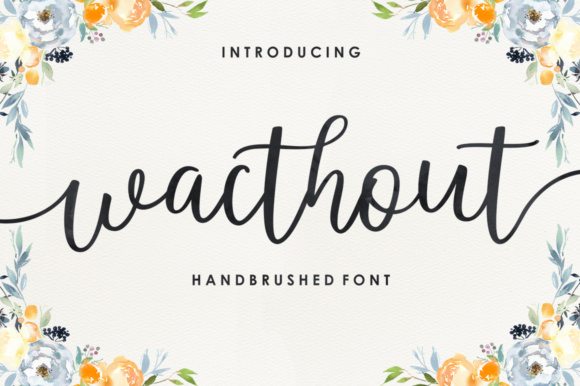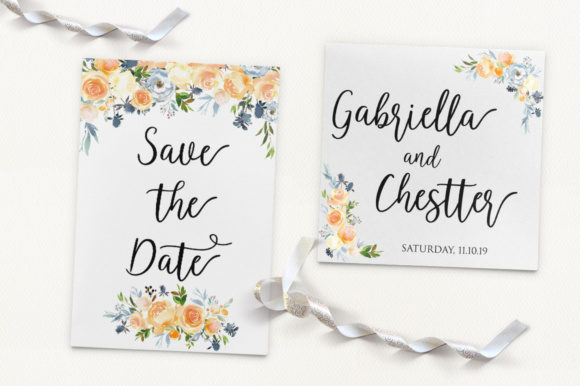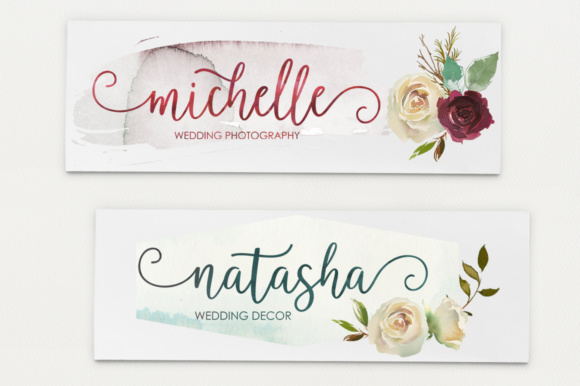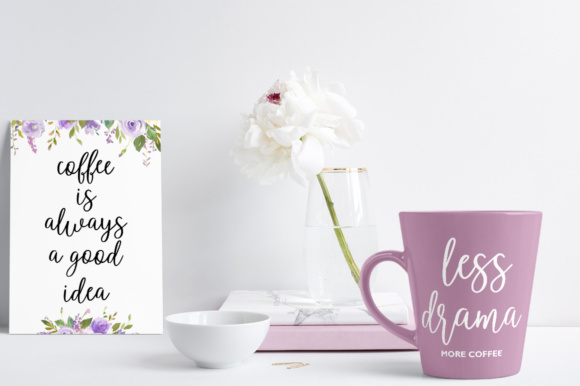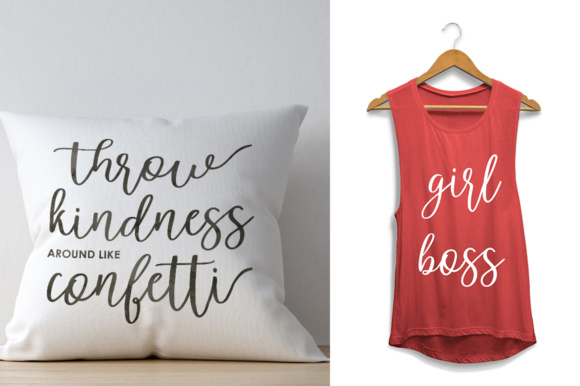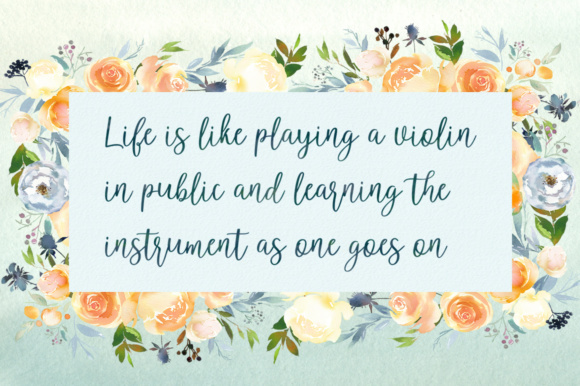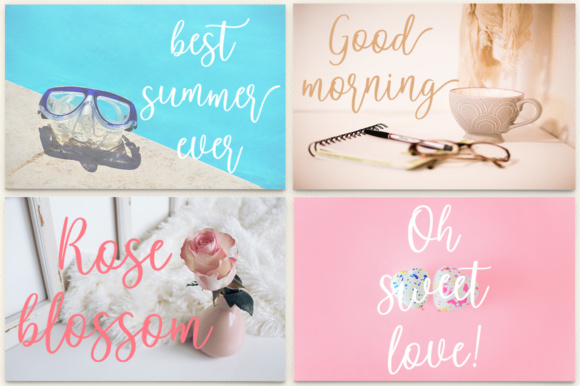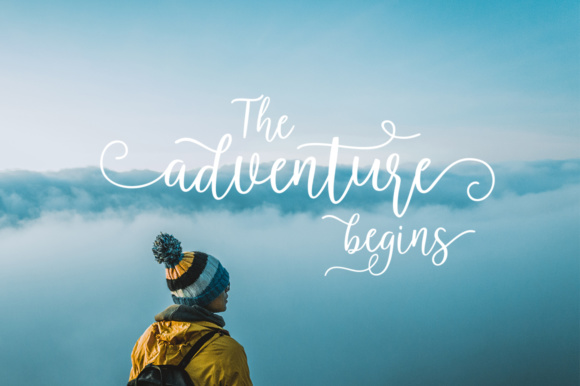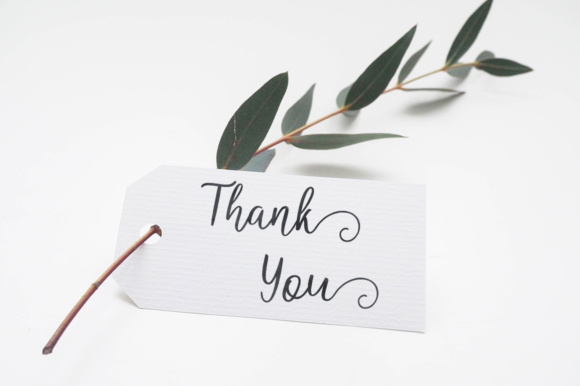
Wacthout Font
About Wacthout Font
Wacthout is a beautiful modern script font, ideal for use in a wide range of fashionable project types. This font has irregularities that make it charming, and works well in invitationals and more.